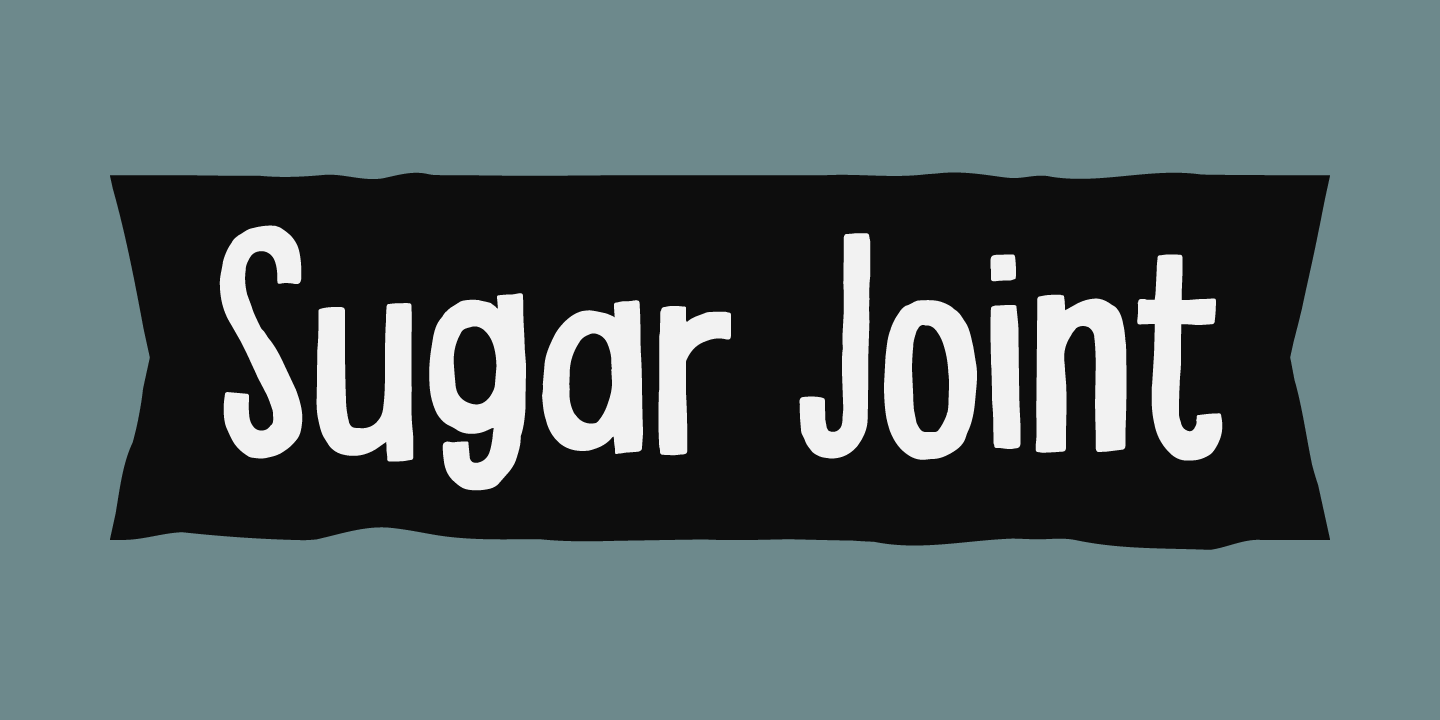
This sweet typeface is perfect for candy stores, bakery signage, ice cream parlors, confectionery packaging, dessert restaurants, chocolate boutiques, sweet treat brands, cotton candy vendors, donut shops, cupcake businesses, candy manufacturing, sugar craft workshops, and festive celebration materials. The font's delightful design makes it ideal for projects that celebrate sweetness, indulgence, and the irresistible charm of confectionery delights with playful appeal.
Sugar Joint Font is exciting because it captures the pure joy and irresistible sweetness of confectionery treats through its playful letterforms and candy-inspired character structure. The font's rounded curves and delicious proportions create an atmosphere of happiness, indulgence, and sweet satisfaction, making it perfect for brands that want to convey fun, temptation, and the simple pleasure of sweet treats. Its appetizing personality ensures instant craving while maintaining excellent readability across various sweet applications.
The Sugar Joint Font family includes multiple confectionery variations: Light Powder Sugar, Regular Sweet Treat, Medium Candy Bar, Bold Chocolate Chunk, and Black Fudge weights, each available in standard and sprinkled versions. Special dessert editions feature decorative swirls, candy ornaments, and sweet alternates that enhance the font's delicious appeal, providing designers with comprehensive tools for creating truly mouth-watering communications.